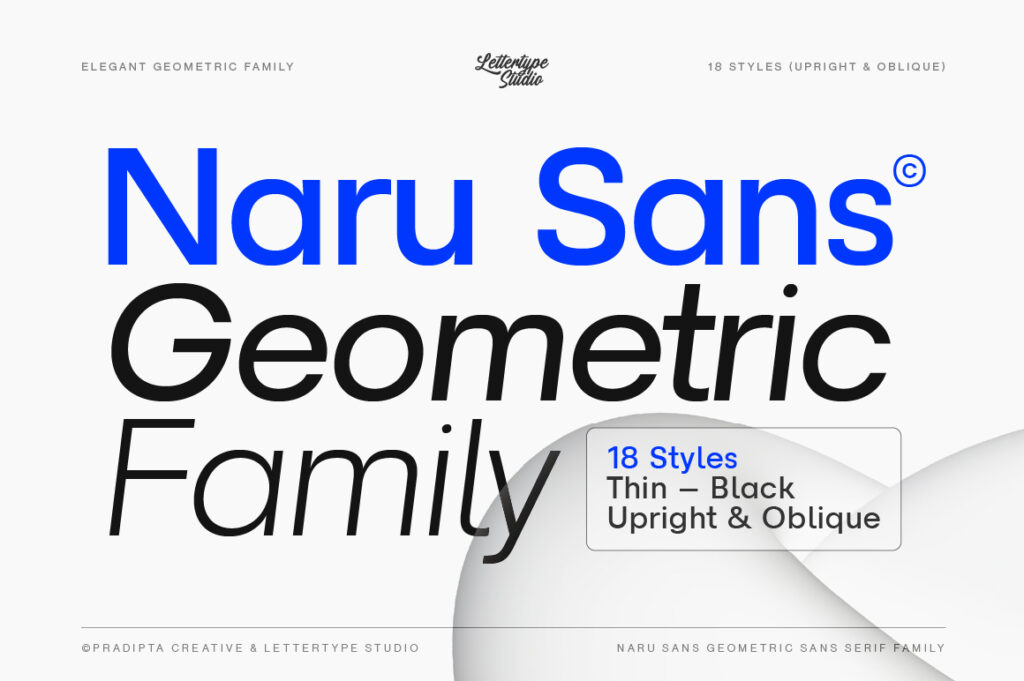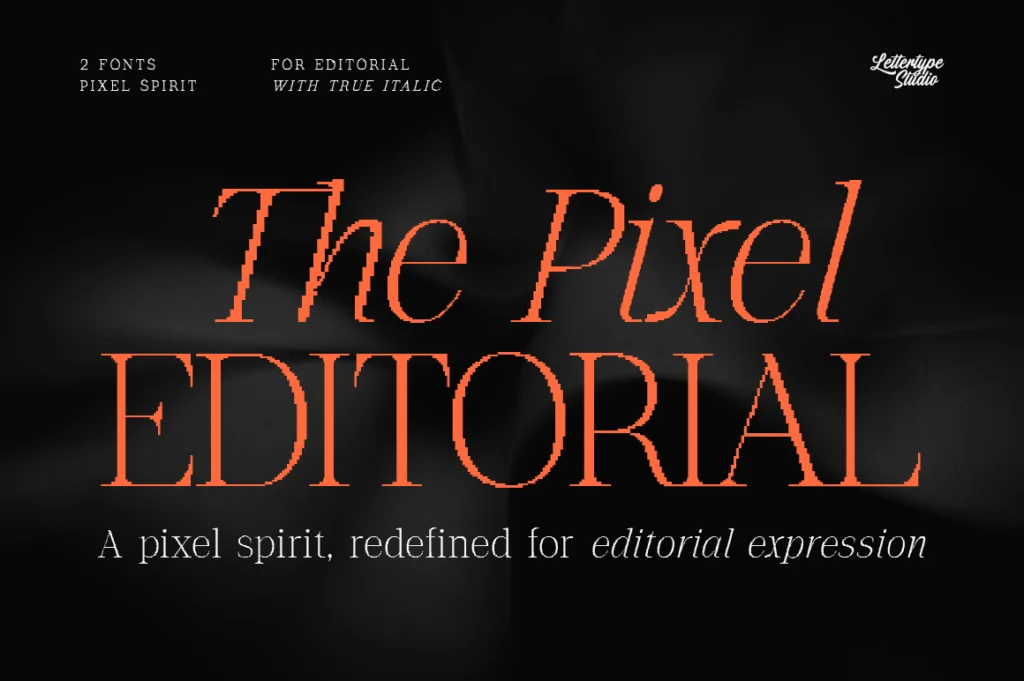
Best Fonts for Logo Design: The Sans Serif Advantage Brands Rely On
A logo doesn’t fail because it looks bad.
It fails because it doesn’t feel right.
And more often than not, that comes down to one decision:
the font.
In modern branding, sans serif fonts have become the go-to choice for logo design. But this isn’t just a trend—it’s a strategic decision used by brands that want to look clean, confident, and scalable.
So why do so many brands rely on sans-serif fonts for logos?
Why Sans Serif Fonts Work So Well for Logos
Sans-serif fonts offer something most brands need:
• Clarity at all sizes
• Strong visual presence
• Flexibility across media
From app icons to billboards, a well-designed sans-serif font maintains its integrity.
That’s why they dominate industries like:
• Tech
• Startups
• Corporate branding
• Digital products
The Advantage: Simplicity That Scales
A good logo needs to work everywhere.
Sans-serif fonts are:
• Easier to read at small sizes
• Cleaner on screens
• More adaptable in responsive design
This makes them ideal for modern branding systems that live across multiple platforms.
Best Sans Serif Fonts for Logo Design (2026 Picks)
Here are some of the best options if you want your logo to feel modern and premium.
1. Raela Pro — Sharp and Professional
Raela Pro delivers a strong, structured look with clean geometry. Perfect for brands that want to feel precise, confident, and modern.
2. Lenia Sans — Minimal and Refined
Lenia Sans brings calm and balance into branding. Its subtle refinement makes it ideal for clean, minimalist logo systems.
3. Naru Sans — Friendly but Controlled
Naru Sans offers a softer approach without losing structure. Great for brands that want to feel approachable yet professional.
4. The Pixel Editorial — Expressive Branding Edge
While not a pure sans serif system font, The Pixel Editorial works exceptionally well for logos that need personality and editorial flair.
5. Inter — Functional and Digital-Ready
Inter is widely used for digital interfaces. It’s highly readable and optimized for screens, though often lacks distinctive character for branding.
6. Helvetica Now — Neutral and Timeless
A classic choice. Helvetica remains one of the most widely used logo fonts due to its neutrality and clarity—but its popularity can reduce uniqueness.
7. Circular — Clean with Warmth
Circular blends geometric structure with subtle friendliness, making it suitable for modern lifestyles and tech brands.
When Sans Serif Might Not Be Enough
While sans serif dominates, it’s not always the perfect choice.
Some brands benefit from:
• Serif fonts for elegance
• Display fonts for uniqueness
For example, a luxury brand might gain more impact from a refined serif like Vescura, especially in high-end or editorial contexts.
How to Choose the Right Font for Your Logo
Before you decide, ask yourself:
• Do you want to feel modern or classic?
• Should your brand feel neutral or expressive?
• Will your logo be used more digitally or physically?
The answers will guide your choice.
Final Thought
A great logo isn’t about complexity—it’s about clarity and intention.
Sans-serif fonts continue to dominate because they offer both.
But the real advantage isn’t the category—it’s the execution.
Choose a font that aligns with your brand, and your logo will do the rest.